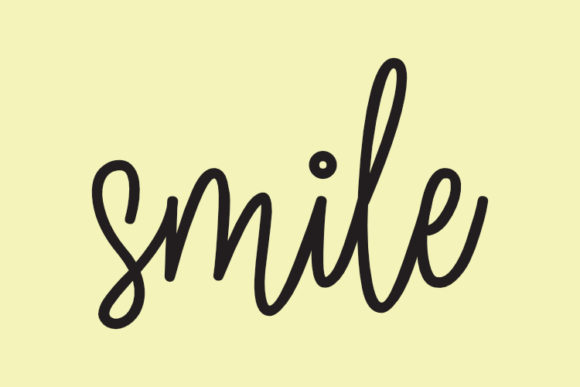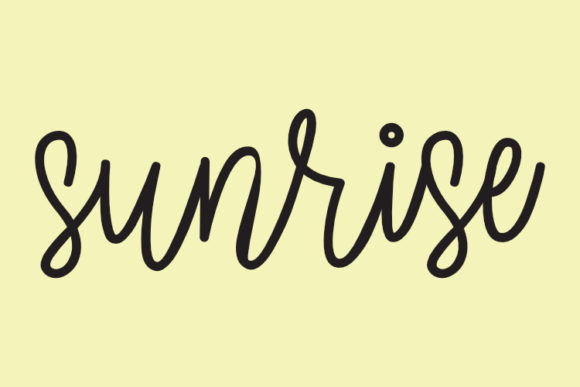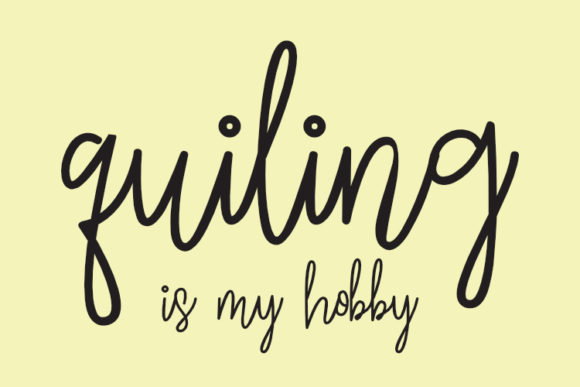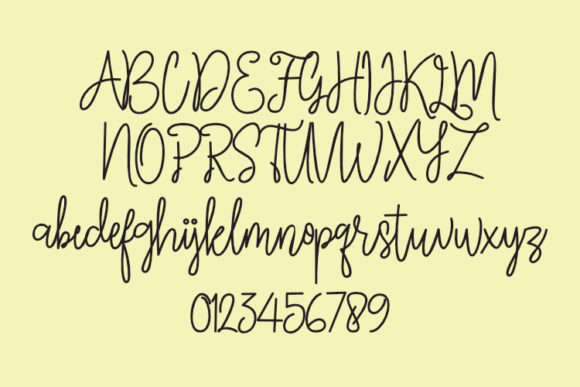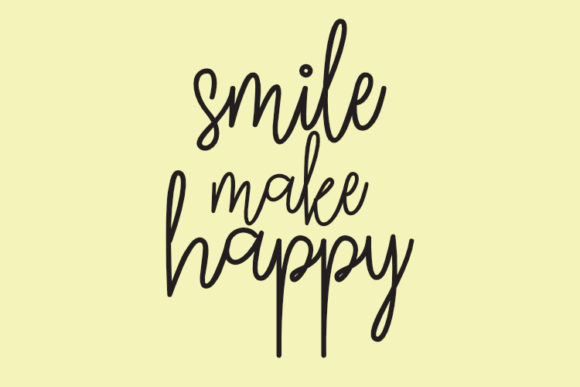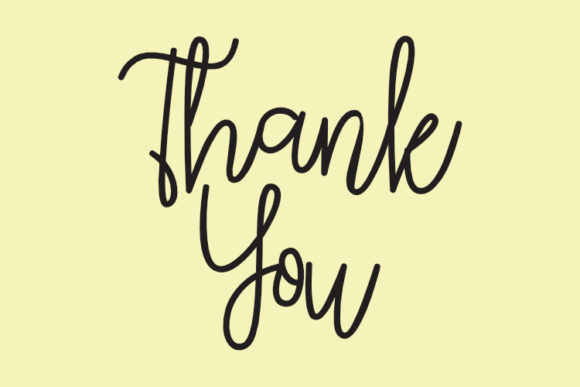
HomeScript FontsQuillines Font Script Fonts Quillines Font FacebookXPinterestWhatsApp Quillines Font Poster 2 Quillines Font Poster 3 Quillines Font Poster 4 Quillines Font Poster 5 Quillines Font Poster 6 Quillines Font Poster 7 About Quillines Font Quillines is a unique script with a beautiful feel. Fall in love with its contemporary charm! DOWNLOAD NOW People also explored Ingredients Font Neuffila – Grotesk Sans Family Font Valentine Bestie Font Butter Chocolate Font Bag Sack Paint Scene Beng Beng Font Klepoon Font Cool Cat Font Elektroblooming Font 370 0 TagsQuillines Font Previous articleThe Macksen FontNext articleMoonline Font LEAVE A REPLY Cancel reply Comment: Please enter your comment! Name:* Please enter your name here Email:* You have entered an incorrect email address! Please enter your email address here Website: Save my name, email, and website in this browser for the next time I comment. Personal Use Free Little Pixel Personal Use Free Read more about this font Stronger Personal Use Free Read more about this font Gila Personal Use Free Read more about this font Dakwart Letter Personal Use Free Read more about this font BLOG Top 7 Google Fonts Alternatives for Faster and Privacy-Friendly Web Design (2025) Top 7 Google Fonts Alternatives for Faster and Privacy-Friendly Web Design (2025) When it comes to web typography, Google Fonts has long been the go-to... To increase your work productivity, choose the most readable fonts. Modern Sans-Serif Fonts That Brands Love in 2025 Using Fonts in Digital Marketing: Tips to Strengthen Your Brand Identity